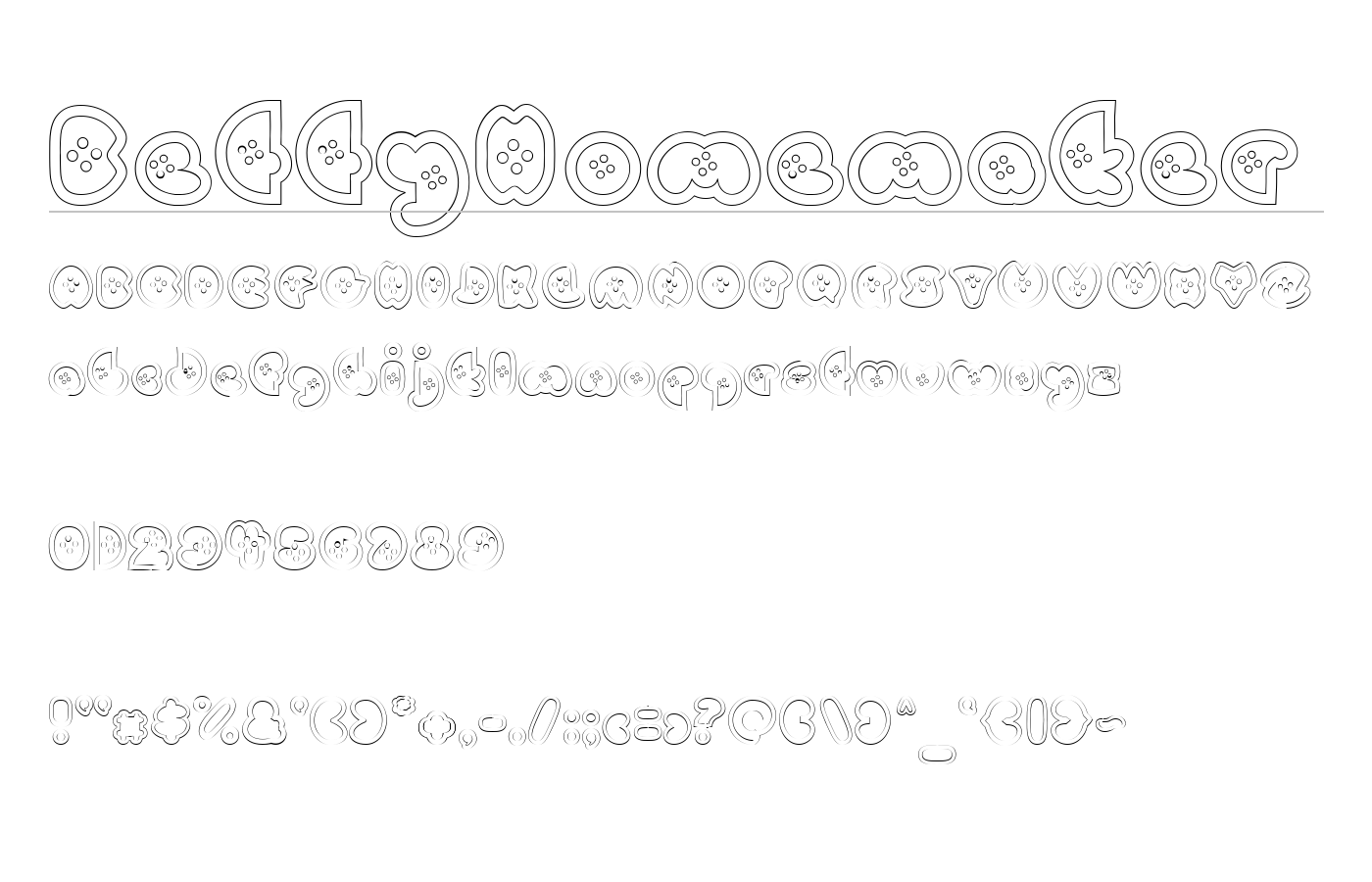
BettyHomemaker is a playful, rounded display font with a whimsical charm reminiscent of button shapes, featuring soft, bubbly letterforms and light stroke weight. Its quirky design makes it ideal for creative, fun branding, children’s projects, or casual invitations, where a friendly and approachable mood is desired. This font works best in large sizes for headlines or decorative purposes rather than body text due to its unique and decorative style.
BettyHomemaker Font
About BettyHomemaker Font